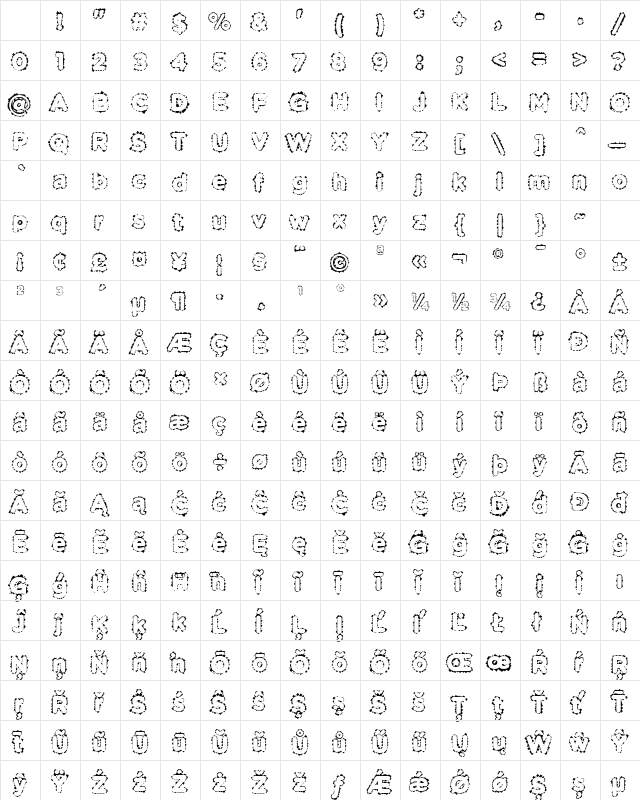
Pabellona (B) D is a composed and adaptable typeface that performs quietly and consistently across a wide range of design contexts.
Pro Tip: Use Pabellona (B) D in both headline and body roles to test its range before committing to a single application.